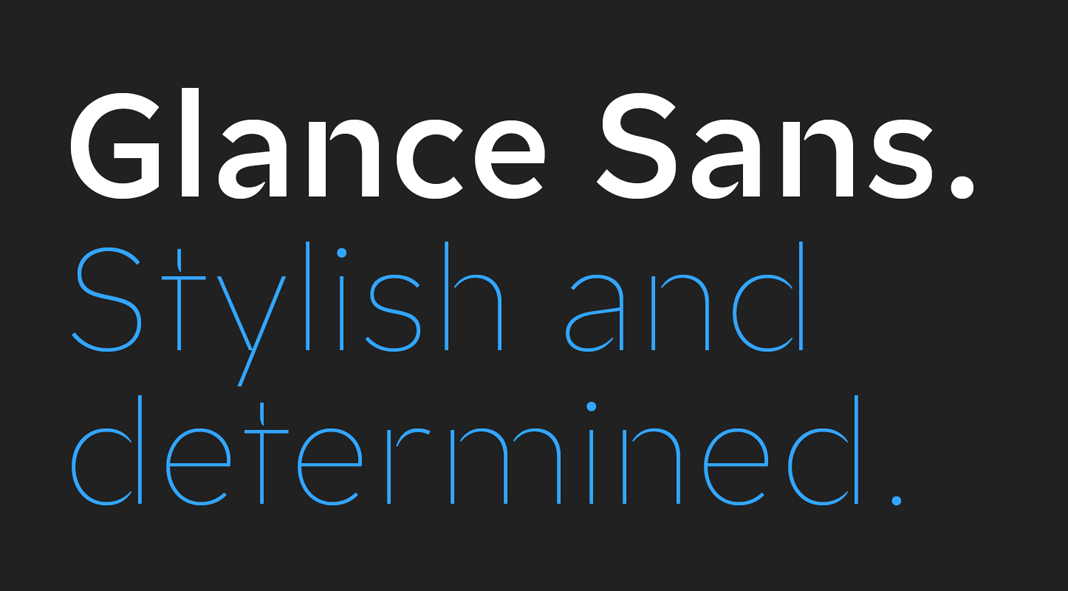
Take a look at Glance Sans, a strong-willed sans-serif font family with some charming characteristics.
Designed by Moritz Kleinsorge of foundry Identity Letters, Glance Sans is a super-stylish sans-serif font family that offers some unique characteristics. The German type designer has created this typeface as an urban companion to Glance Slab.
To be honest, this unique typeface is one of the most refreshing sans-serif designs we’ve seen in a while. The Glance Sans font family is clearly in line with the characteristic design principles of Glance Slab. For instance: some strokes are not connected to their stems. These clearly visible gaps create a unique and dynamic interaction between balance and movement. Nevertheless, due to the lack of detached serifs, Glance Sans offers a bit more of a calmer appearance.
The Glance Sans font family comes with seven weights plus matching italics for each weight resulting in a total of fourteen fonts. With a character set of more than 600 glyphs, Glance Sans is also equipped with six sets of figures, circled numbers, circled arrows, and plenty of currency symbols in two stylistic versions. We recommend this typeface for industrial and high-tech branding projects as well as wayfinding systems in contemporary or modernist architecture. Just click on one of the following links to learn more about this unique font family.